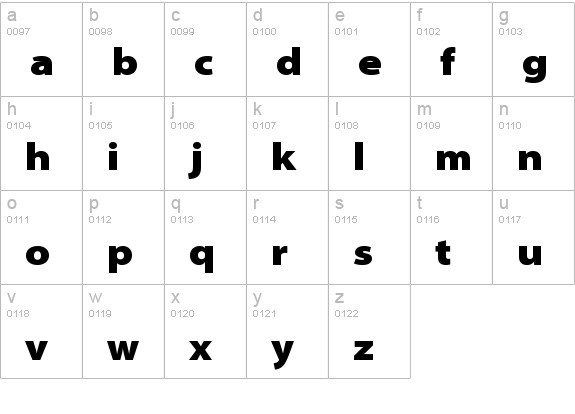
Myriad Pro Black SemiExtended Font Details
Myriad Pro Black SemiExtended is a maximum-weight, dramatic variant in the Myriad typeface family \xE2\x80\x94 well suited to maximum-impact headlines, posters, and packaging.
Myriad Pro Black SemiExtended font is a stylish and versatile typeface that exudes modernity and sophistication. With its bold and semi-extended design, this font is perfect for creating eye-catching headlines, titles, and logos. The clean lines and balanced proportions of Myriad Pro Black SemiExtended make it a popular choice for both print and digital projects. The best part about Myriad Pro Black SemiExtended font is that it is completely free to download at FontsMarket.com. This means that you can easily access this high-quality font without any cost, making it a valuable addition to your design toolkit. Whether you're working on a professional project or a personal creative endeavor, Myriad Pro Black SemiExtended font offers the perfect blend of style and functionality. Download it today and elevate your designs with this exceptional typeface.